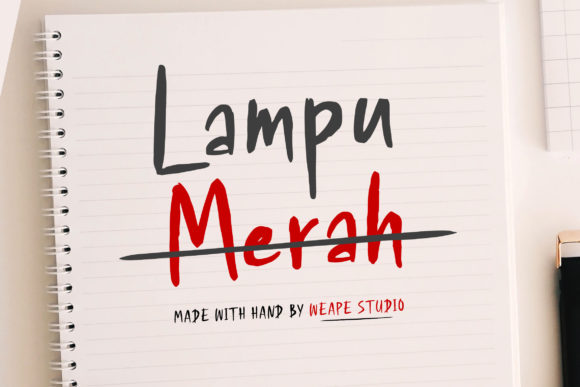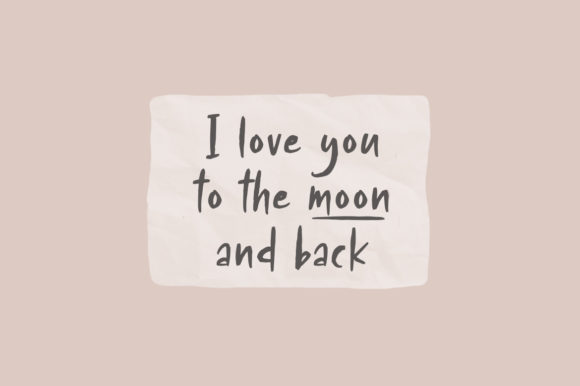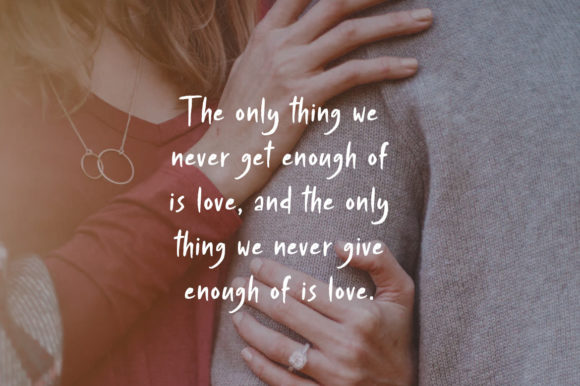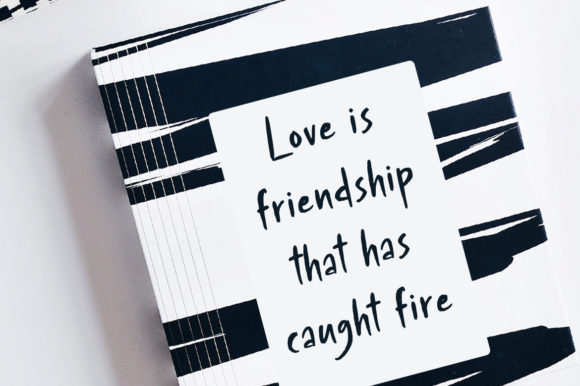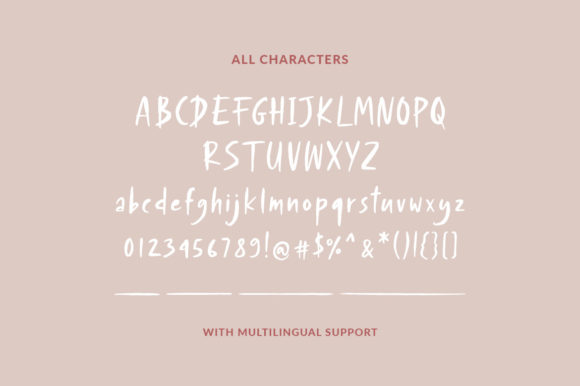
About Lampu Merah Font
Lampu Merah is a whimsical and genuine handwritten font. Expertly designed to make your creation look out of this world, this font will look gorgeous on a variety of ideas.